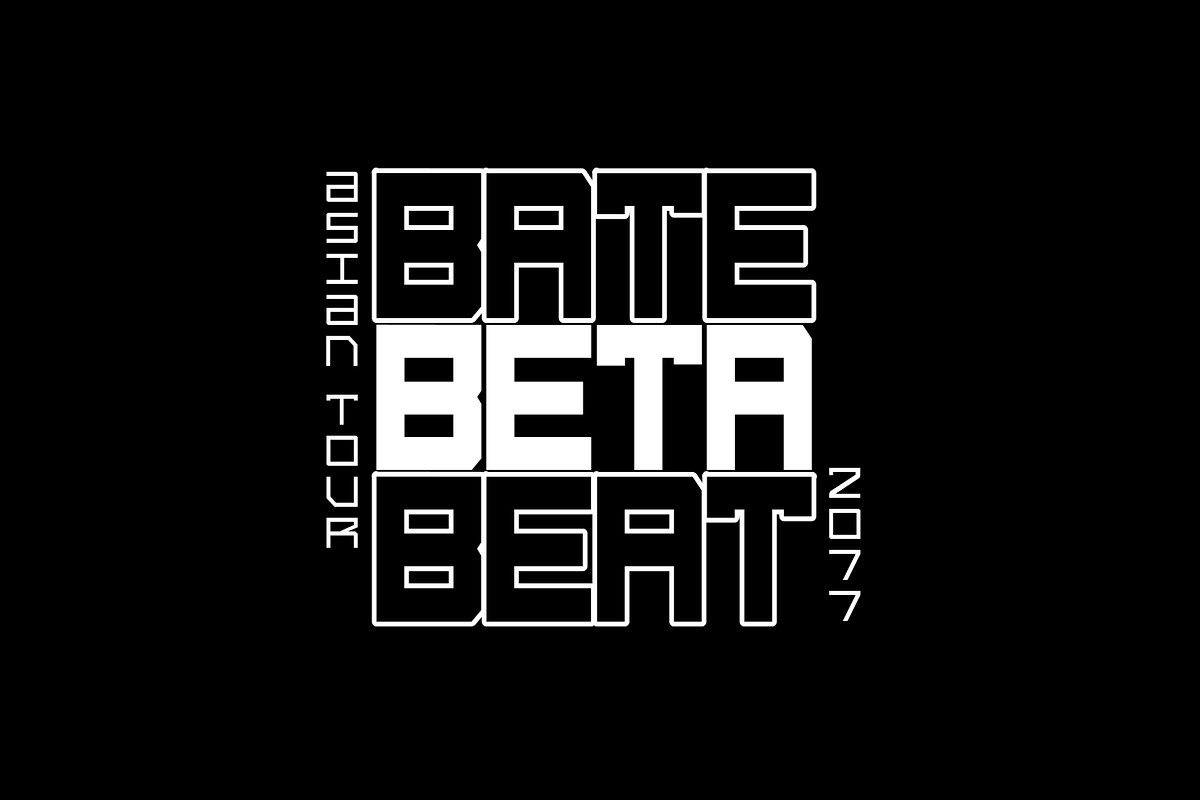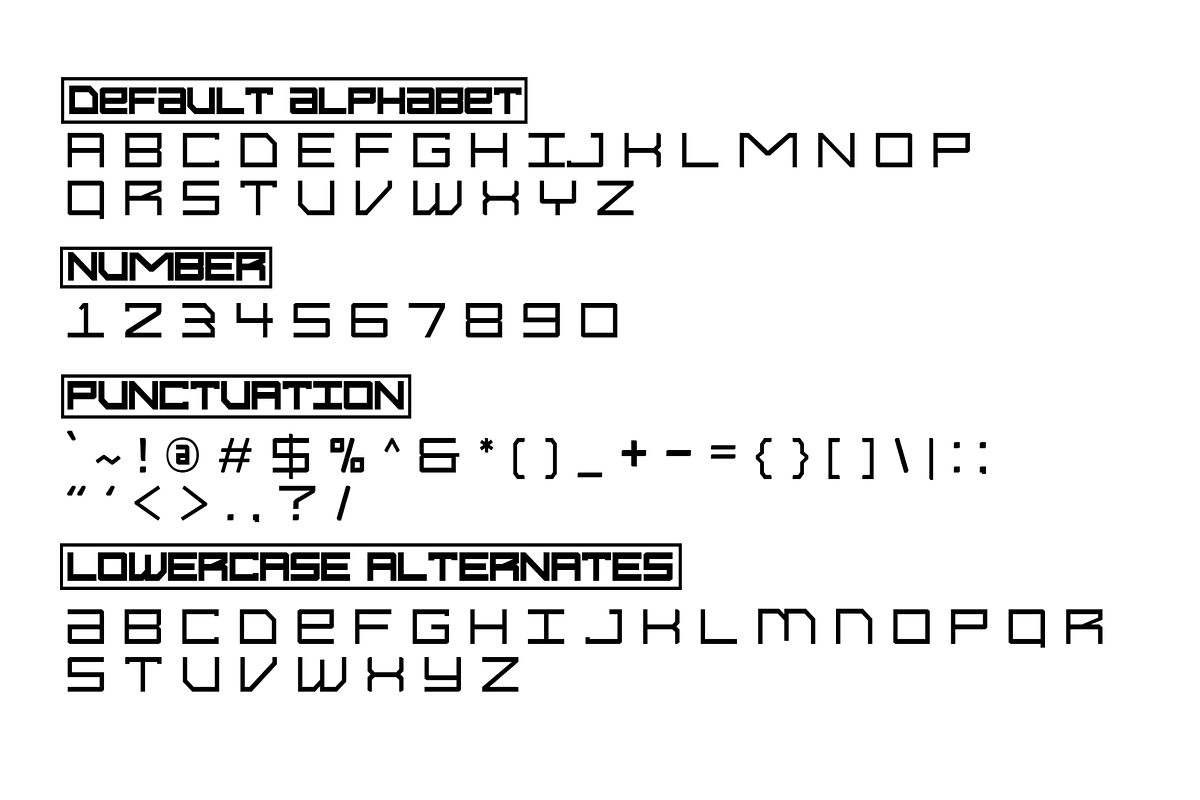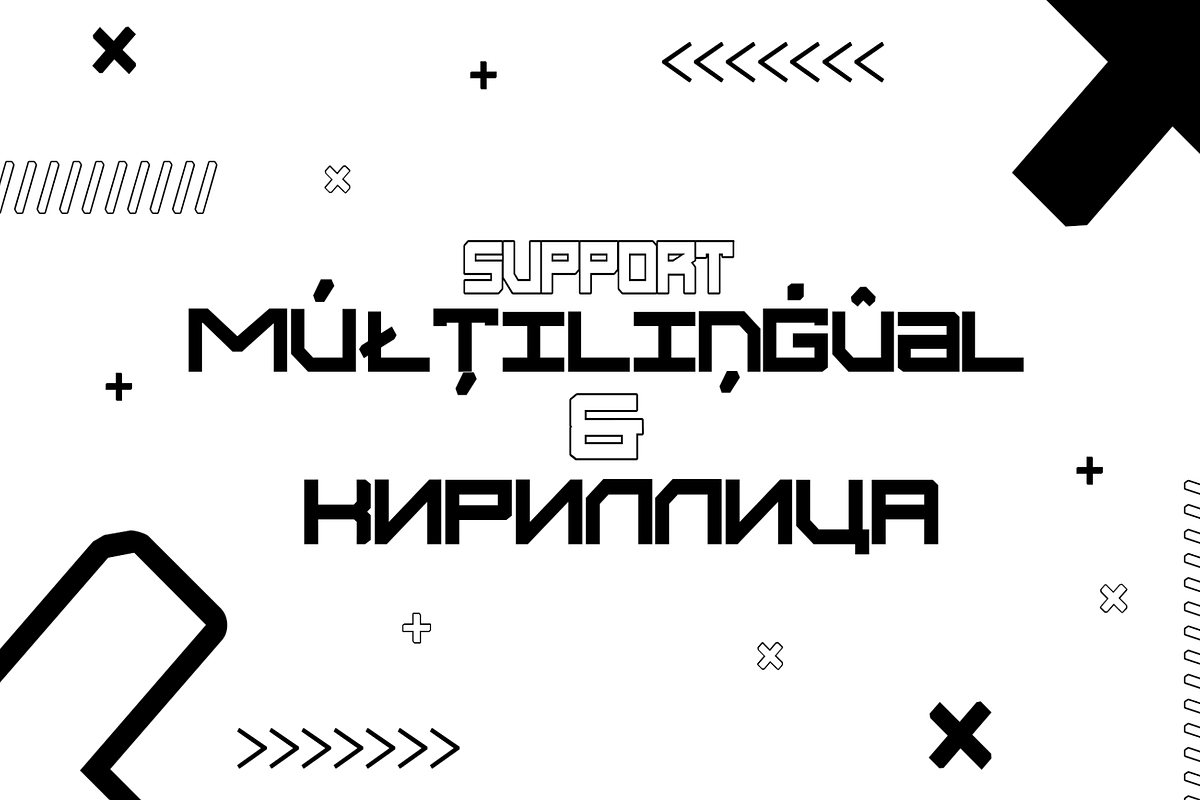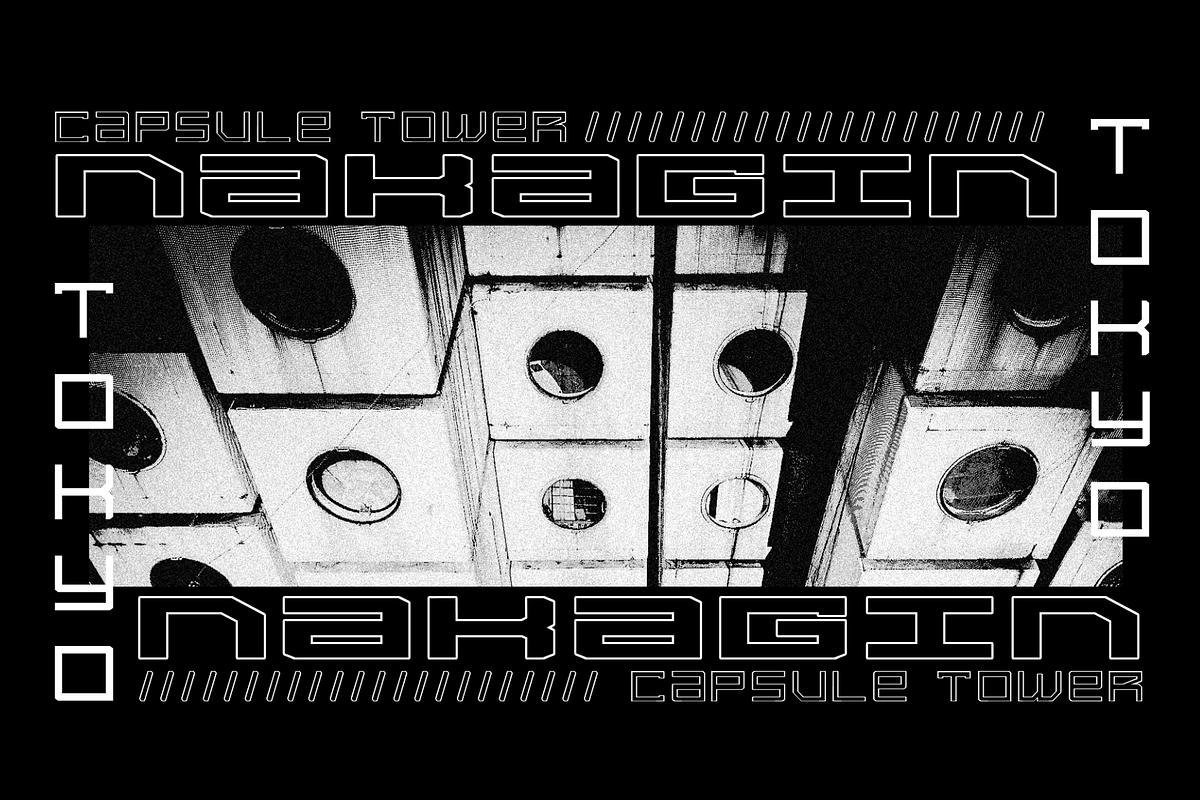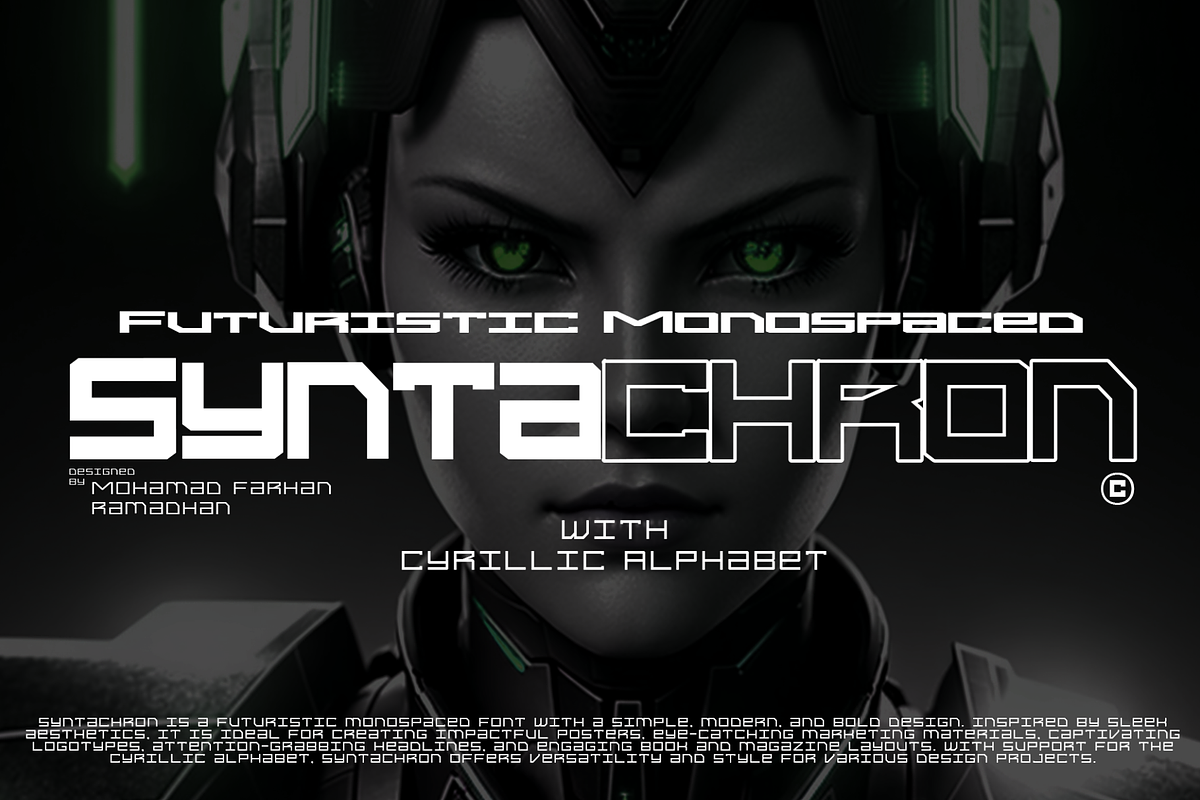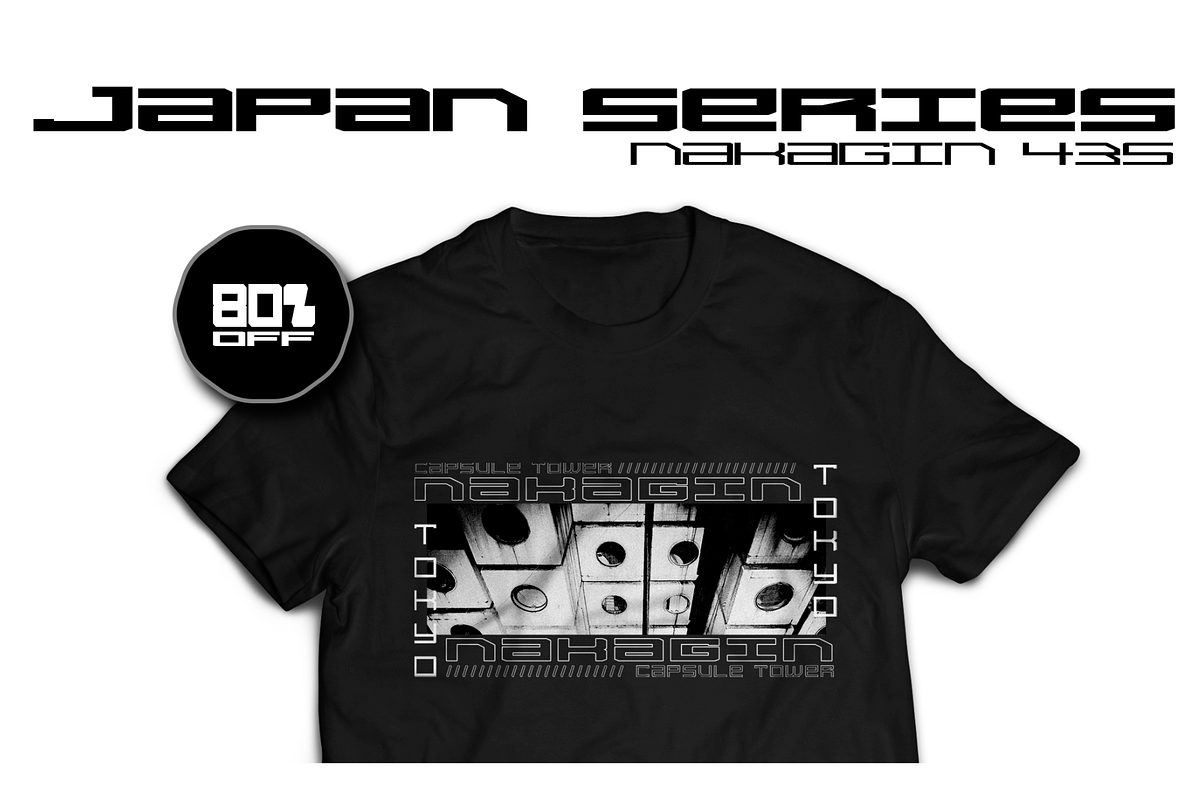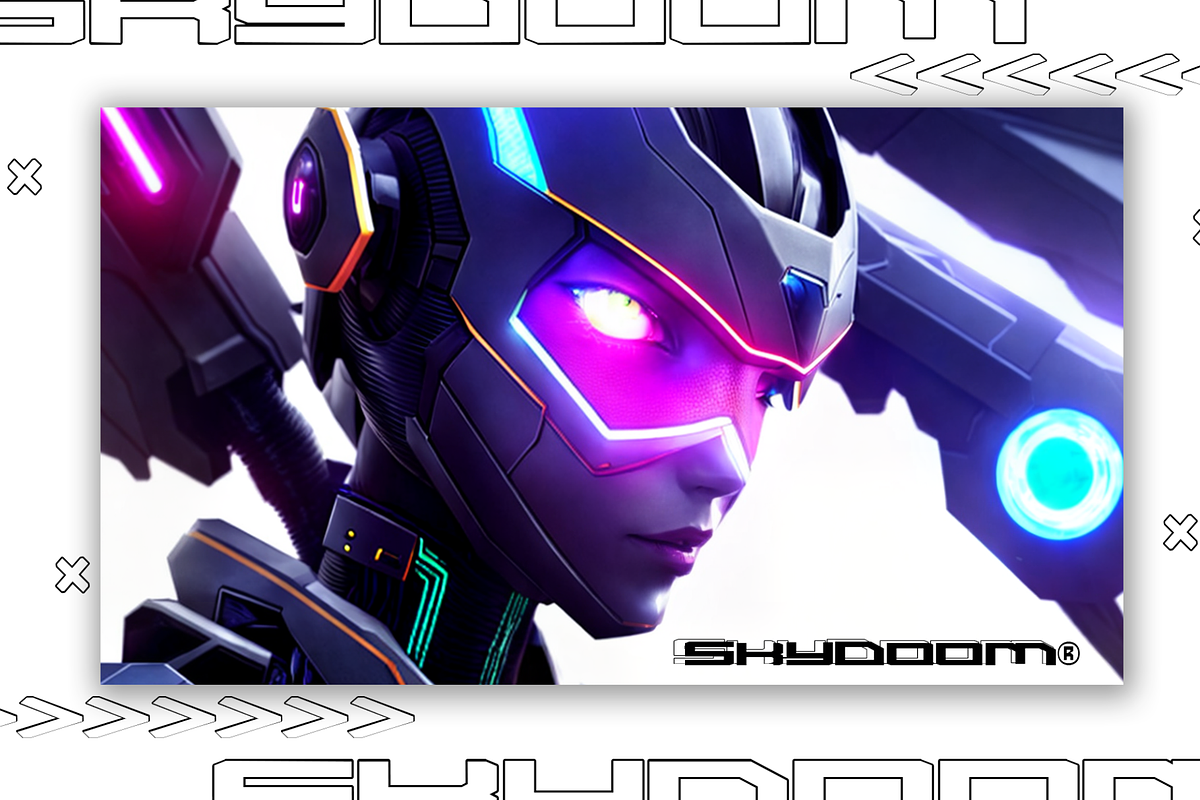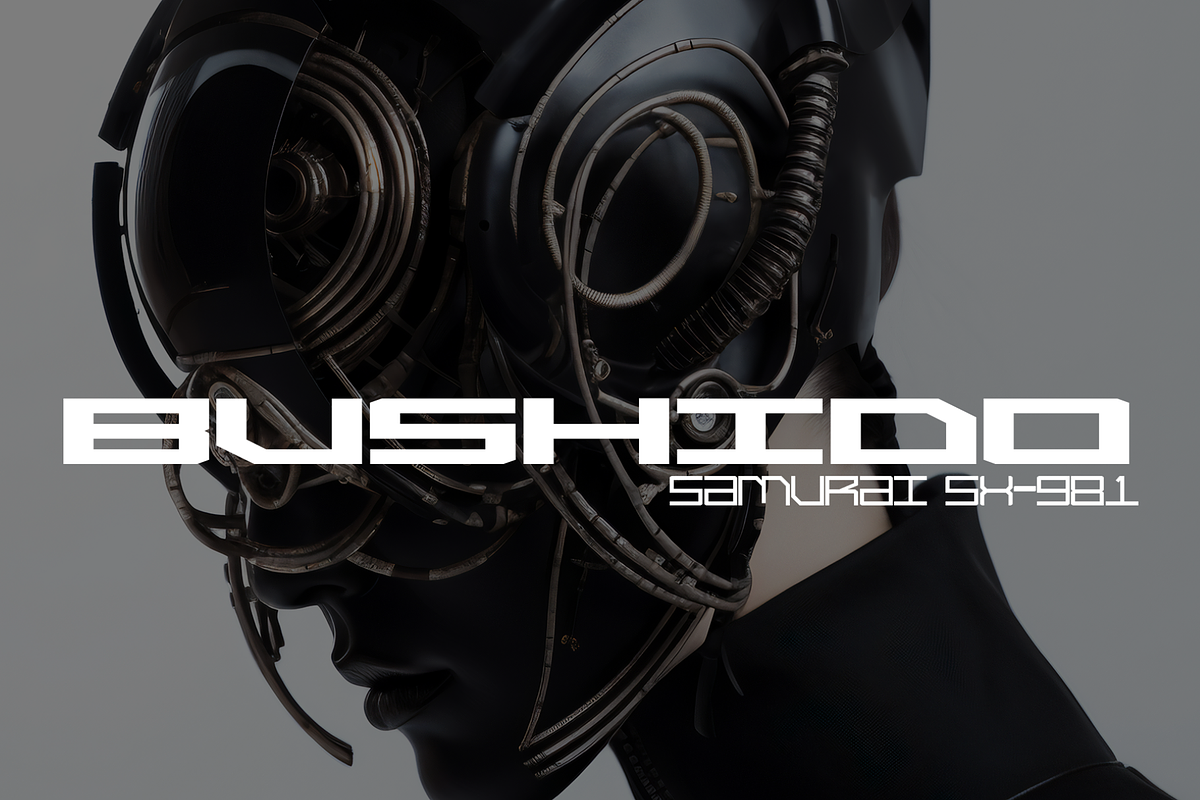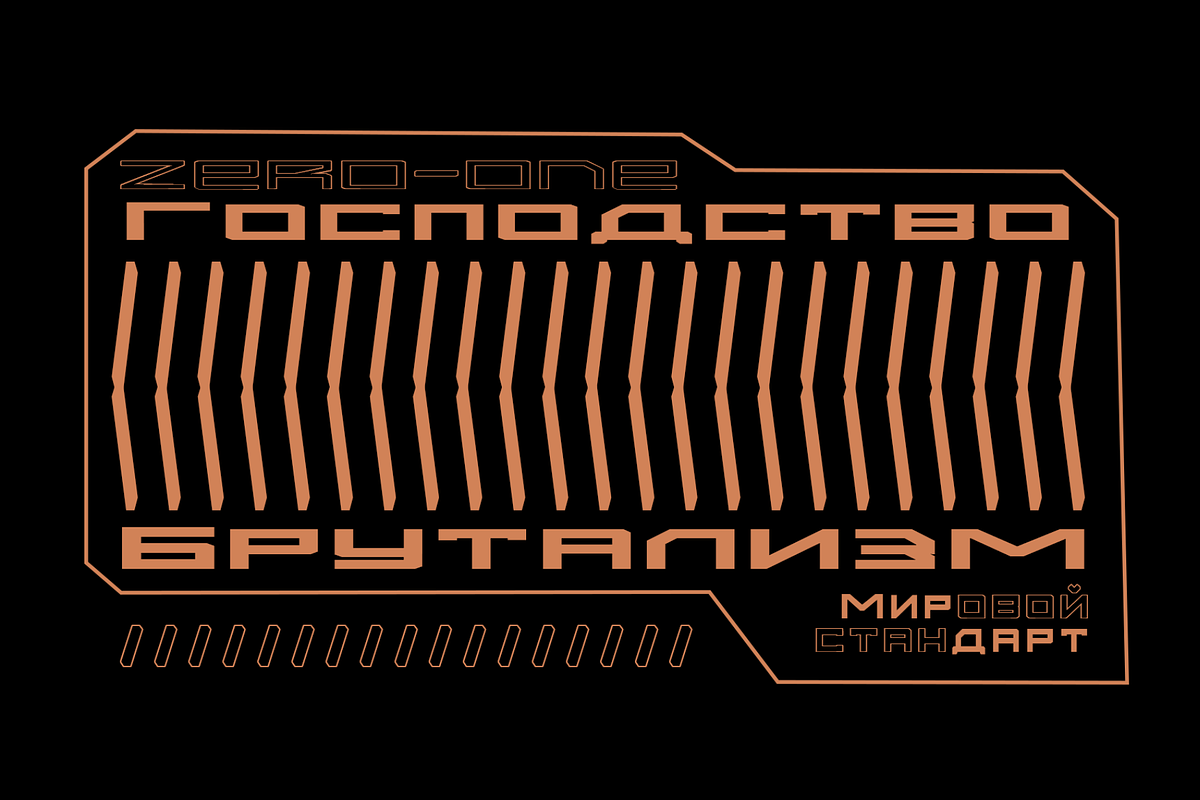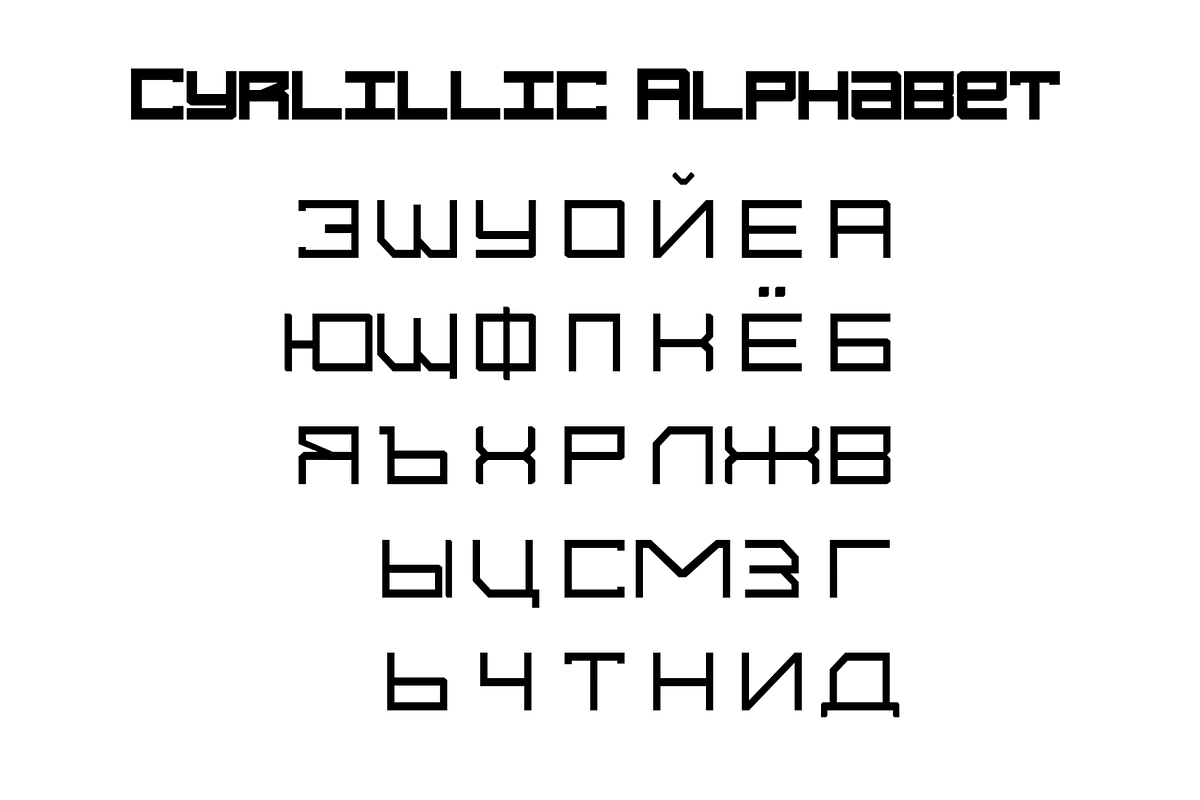
Syntachron - Futuristic Monospaced
Syntachron is a futuristic monospaced typeface that combines simplicity, modernity, and boldness. Designed for versatility, it boasts 12 variable styles that adapt to various design needs. With its sleek Cyrillic alphabet, Syntachron is perfect for creating captivating posters, impactful marketing materials, captivating logos, eye-catching headlines, and engaging book and magazine layouts. Whether you're seeking a contemporary look or a cutting-edge aesthetic, Syntachron is the ideal choice for a wide range of design applications.